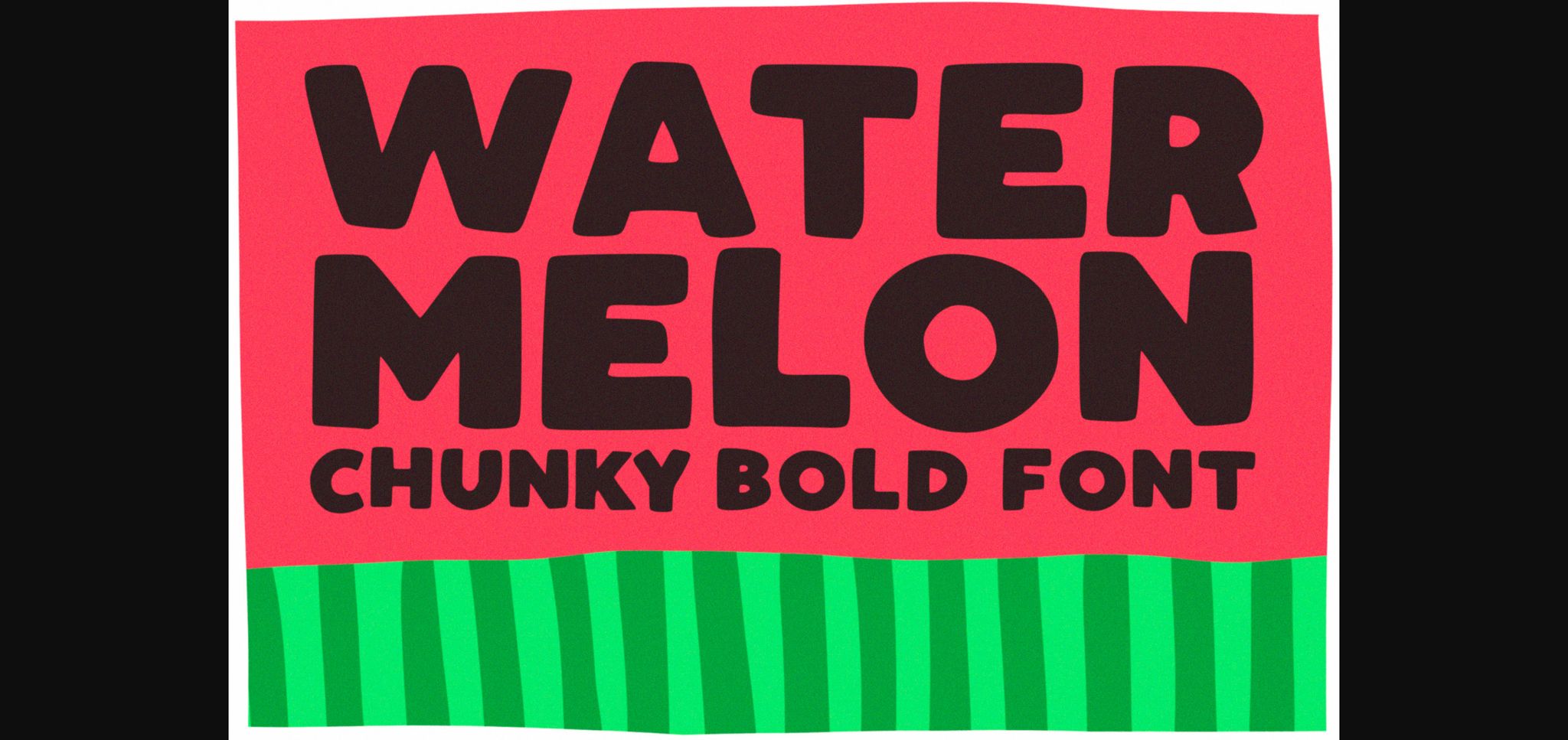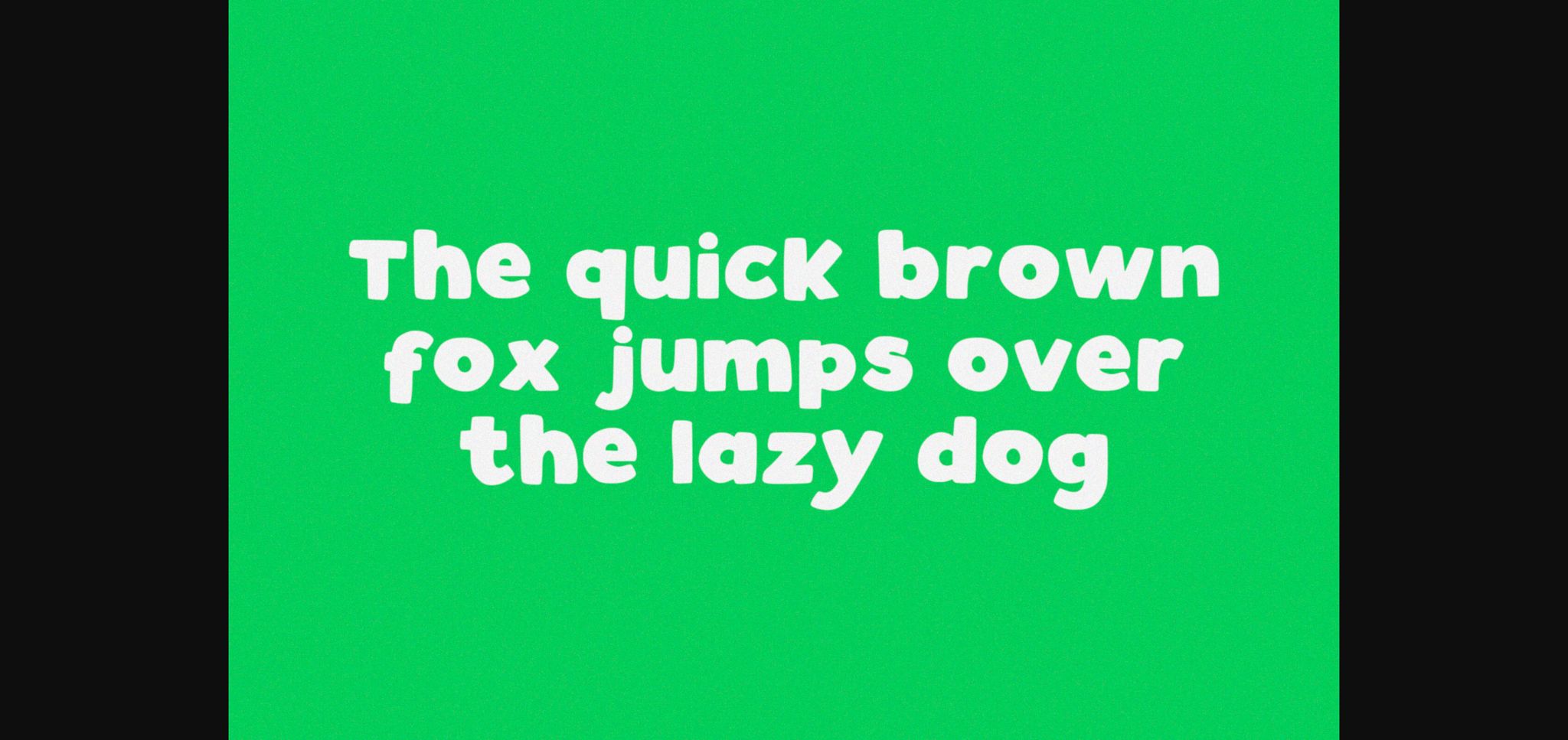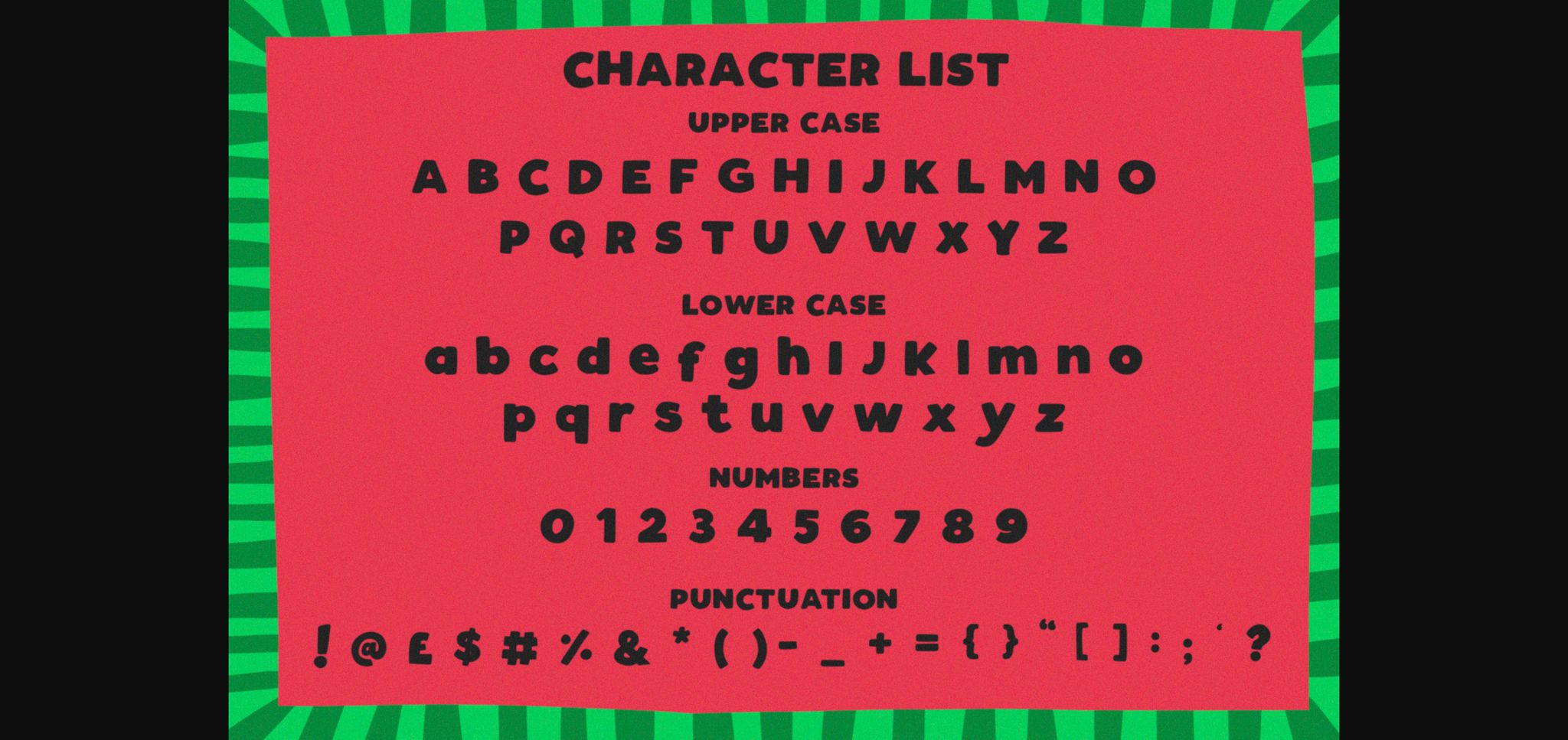
HomeSans Serif FontsWatermelon Font Sans Serif Fonts Watermelon Font FacebookXPinterestWhatsApp 1 of 5 ... Watermelon Font Poster 2... Watermelon Font Poster 3... Watermelon Font Poster 4... Watermelon Font Poster 5... About Watermelon Font Watermelon is a chunky bold typeface perfect for any fun quirky design work! This font can be used for anything such as t-shirt designs, phone cases, greeting cards, invitations, mugs and so much more! Get creative! DOWNLOAD NOW People also explored Belvedere Font The Moniktun Font Munika Funny Bubbles Font Ricarda Font Sweet Sugar Plums Font Order Online Font Untitled1 Anousta Font 429 0 TagsWatermelon Font Previous articleCute Hug Lf FontNext articleApple Juice Font LEAVE A REPLY Cancel reply Comment: Please enter your comment! Name:* Please enter your name here Email:* You have entered an incorrect email address! Please enter your email address here Website: Save my name, email, and website in this browser for the next time I comment. Personal Use Free Kaylafiz Personal Use Free Read more about this font Scoothlane Personal Use Free Read more about this font Term Free Personal Use Free Read more about this font Vanity Personal Use Free Read more about this font BLOG Fonts That Capture the Spirit of New York City New York City is more than just a place—it’s an experience, a rhythm, a visual language... Elegant Wedding Invitation Fonts – Handwritten & Script Fonts To increase your work productivity, choose the most readable fonts. Modern Sans-Serif Fonts That Brands Love in 2025